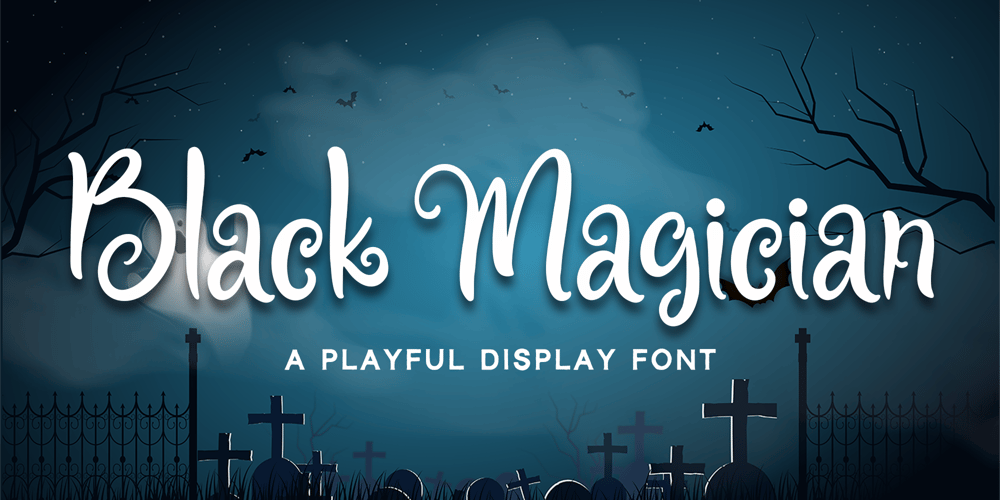
Black Magician Font Family was designed by Nadia Salsabila and published by Alpaprana. Black Magician contains 1 styles and family package options. Black Magician is a stunning playful display font with cute and playful feels. It will be perfectly used for Branding, Logo Design, Lettering, Logotype, Clothing, Poster, magazine, packaging, posters, shopping bags, t-shirts, book covers, photography, special events and other design project.